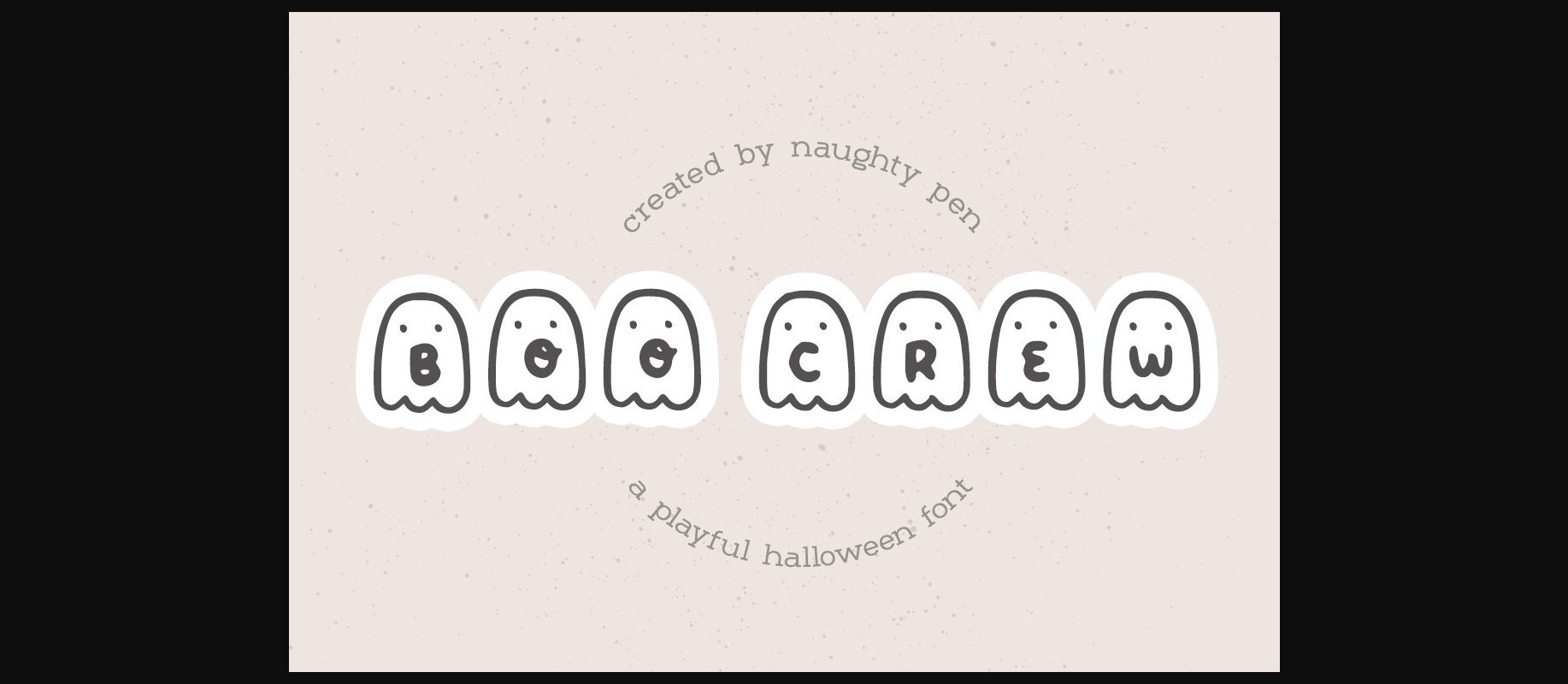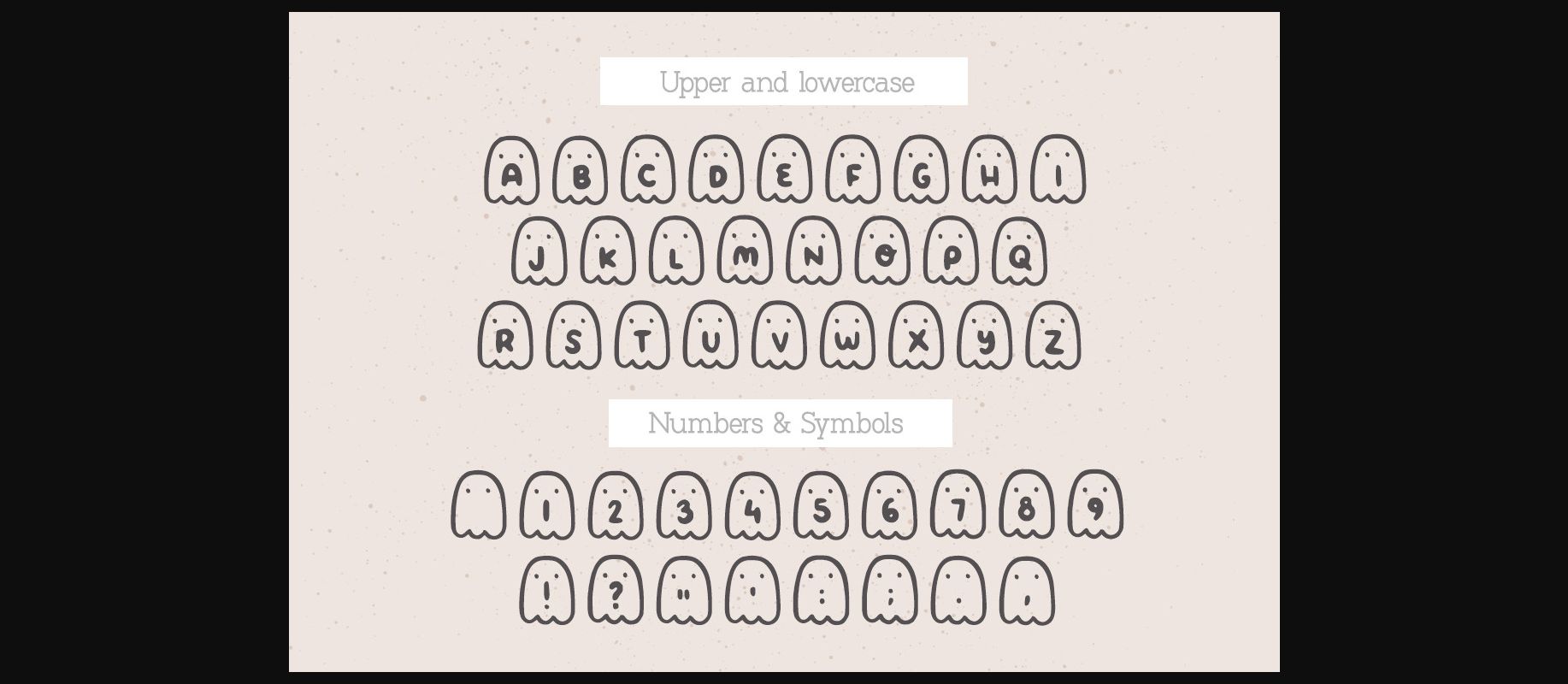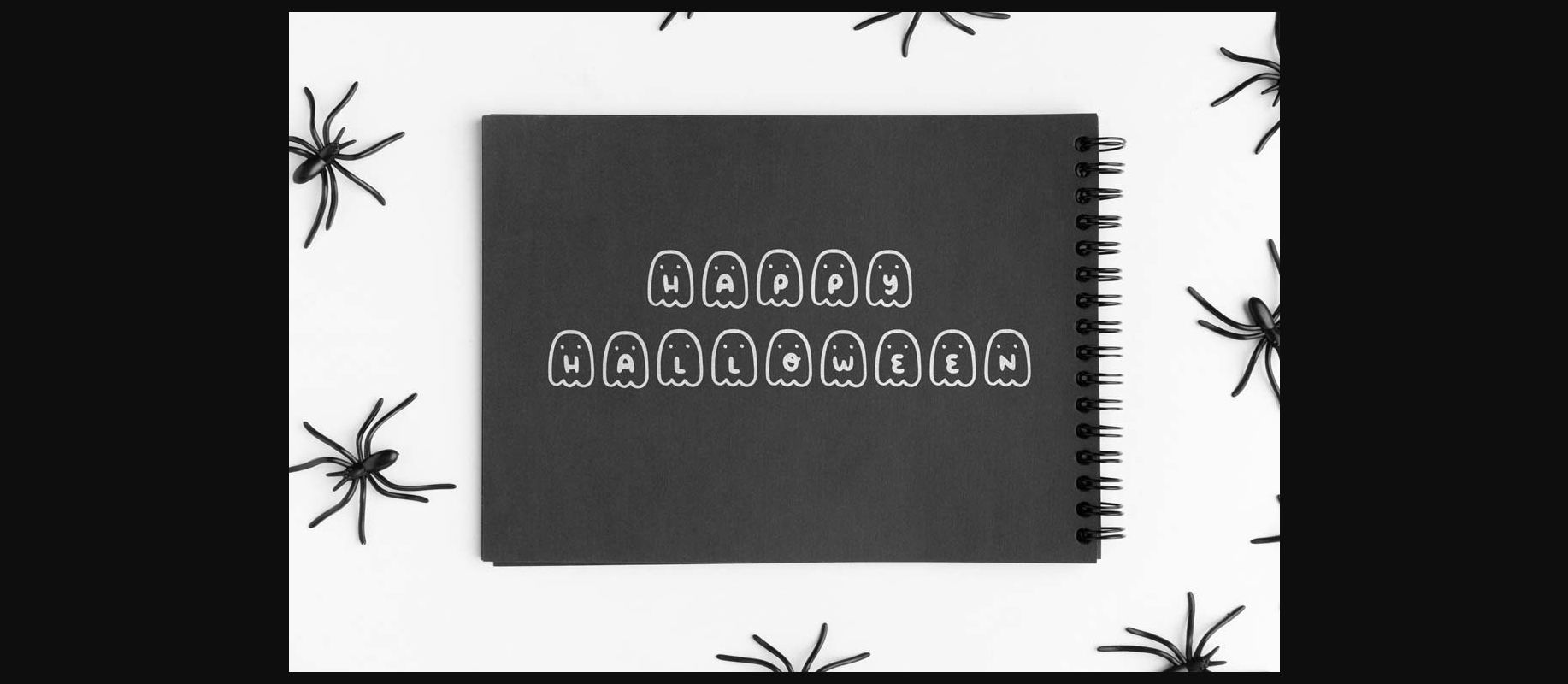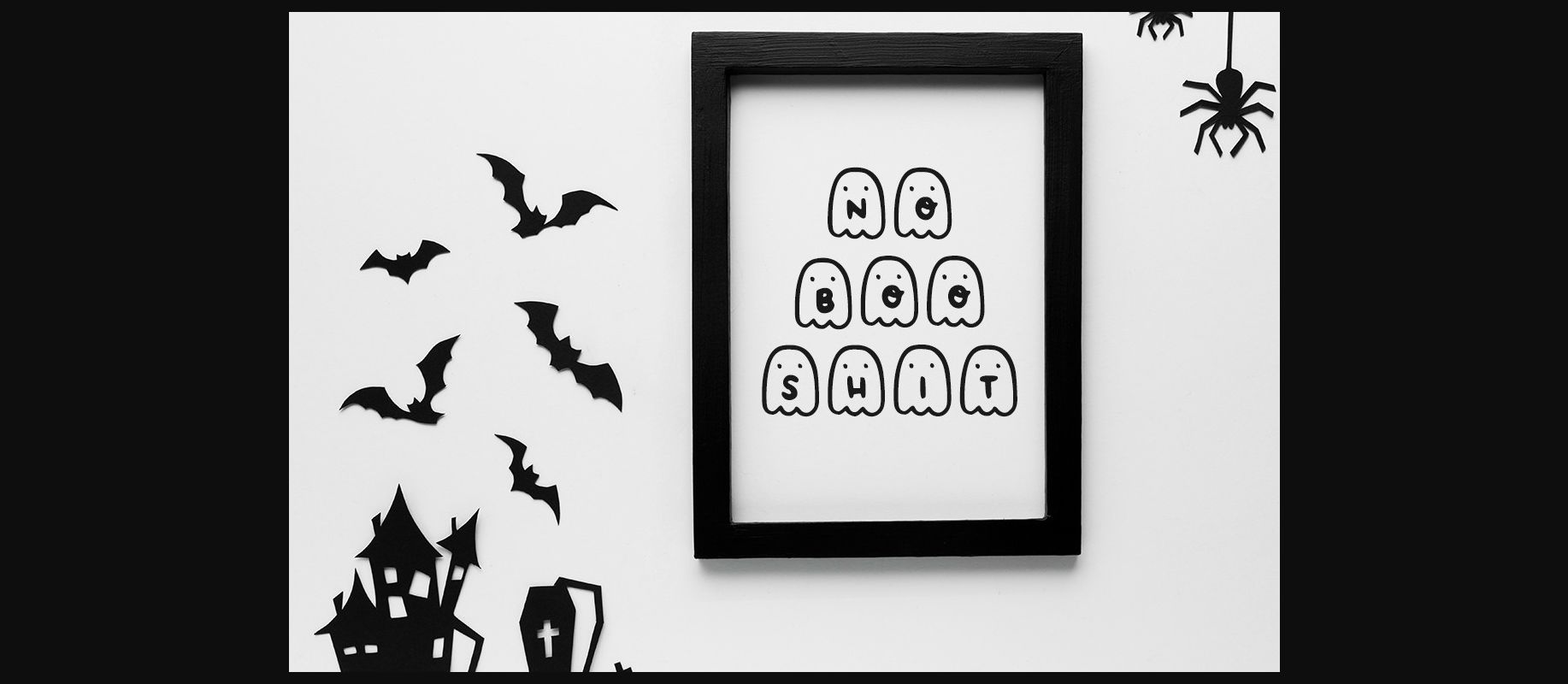
HomeDecorative FontsBoo Crew Halloween Font Decorative Fonts Boo Crew Halloween Font FacebookXPinterestWhatsApp 1 of 6 ... Boo Crew Halloween Font Poster 2... Boo Crew Halloween Font Poster 3... Boo Crew Halloween Font Poster 4... Boo Crew Halloween Font Poster 5... Boo Crew Halloween Font Poster 6... About Boo Crew Halloween Font Boo Crew Halloween is a fun and playful decorative font. It is perfectly suitable for any Halloween-related project or crafty idea! The only limit is your imagination. DOWNLOAD NOW People also explored Sansdiego Font Farm Work Font Fans Serries Font Stereoflows Font Misadventures Squad Font Backyard Love Live Font Winter Sweater Font 350 0 TagsBoo Crew Halloween Font Previous articleFall Pumpkin Monogram FontNext articleChristmas Santa Monogram Font LEAVE A REPLY Cancel reply Comment: Please enter your comment! Name:* Please enter your name here Email:* You have entered an incorrect email address! Please enter your email address here Website: Save my name, email, and website in this browser for the next time I comment. Personal Use Free Wildwest Personal Use Free Read more about this font Yesstea Personal Use Free Read more about this font Rakesly Personal Use Free Read more about this font Leadent Script Personal Use Free Read more about this font BLOG How to Install and Use Fonts on Windows, macOS, and Web Projects How to Install and Use Fonts on Windows, macOS, and Web Projects Fonts are a crucial part of design and branding. Whether you’re designing a... 5 Fonts That Will Dominate Design Trends in 2026 Free Fonts Risk: Why Free Fonts Can Be Dangerous for Designers Best Fonts for YouTube Videos: Make Your Thumbnails Stand Out